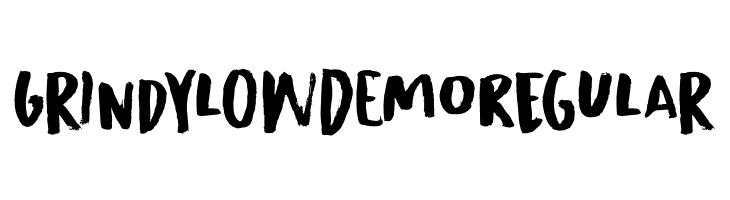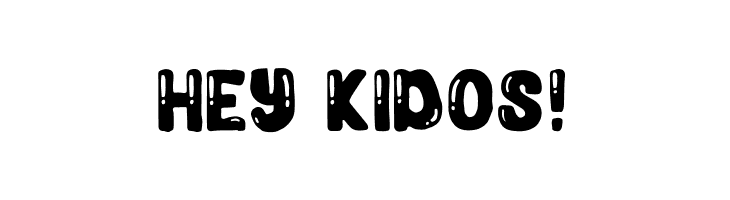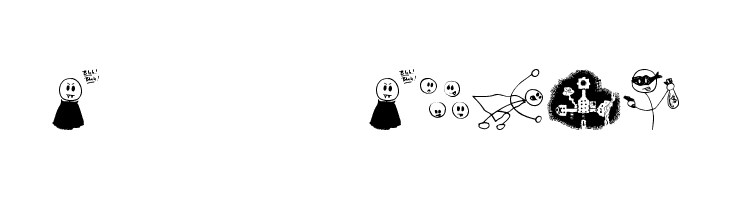
A bold, brush-style font with a raw, hand-painted look.
A decorative set of angelic illustrations in place of traditional font characters.
A whimsical, hand-drawn font with tall, narrow characters and an artistic flair.
A decorative script font with playful, flowing cursive letterforms.
A bold, angular font with a geometric and edgy design.
A bold, italic font with high contrast and dynamic style.
A futuristic, striped font with bold geometric shapes and a dynamic, energetic style.
A bold, handwritten font with a playful and energetic style.
A sharp, angular font with a dynamic, edgy style.
A bold, futuristic font with geometric shapes and sci-fi elements.